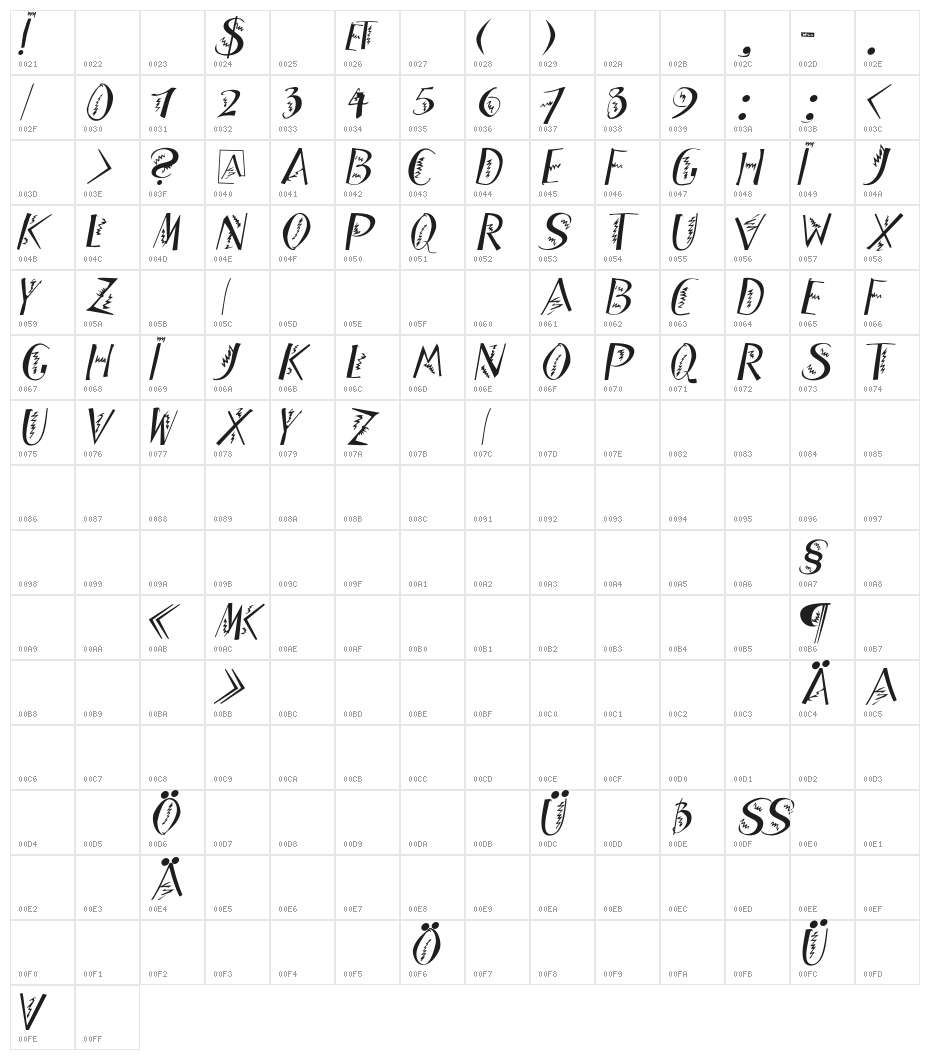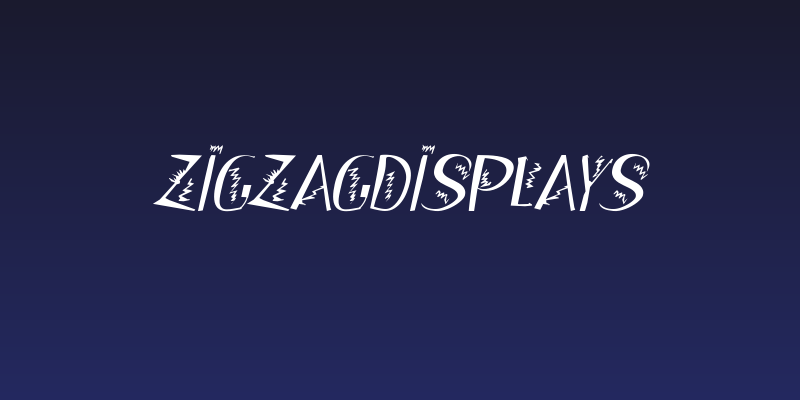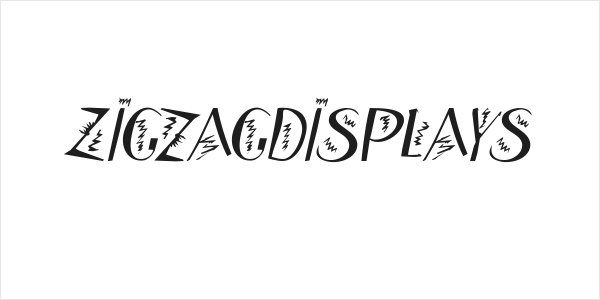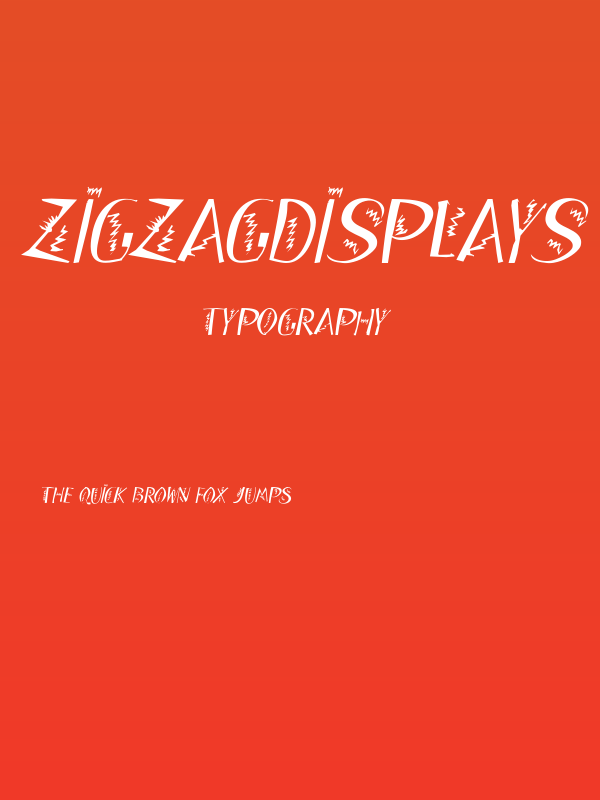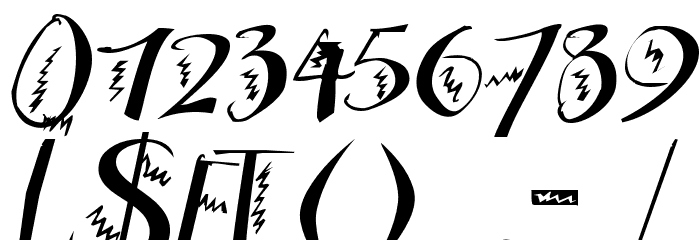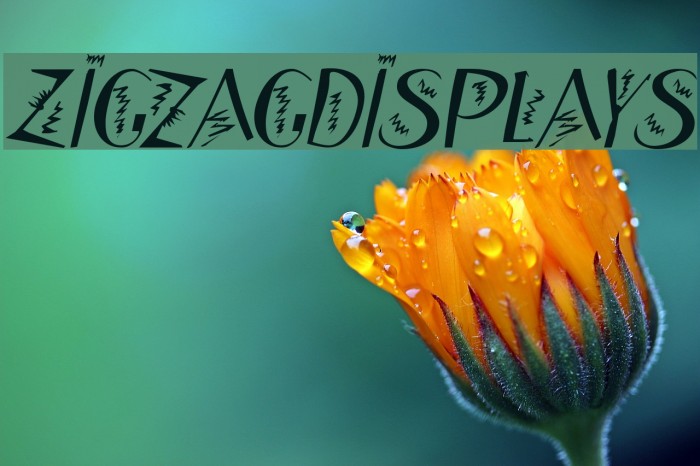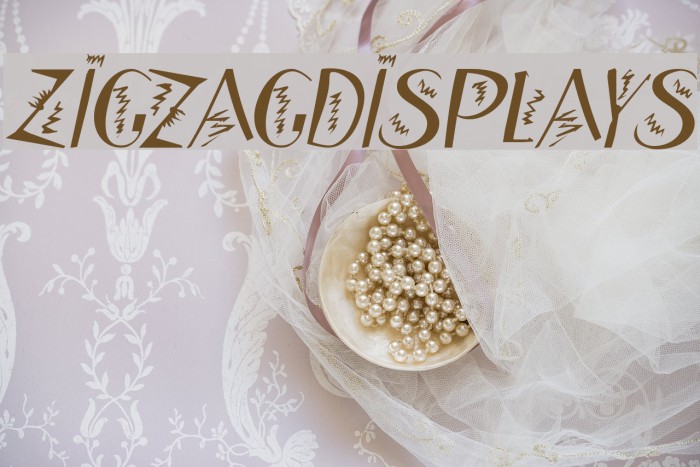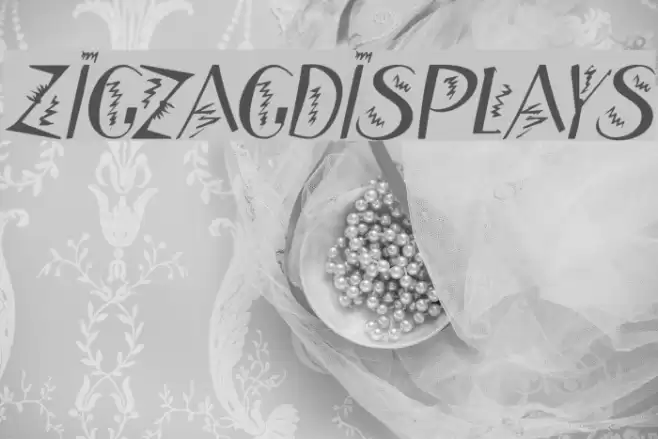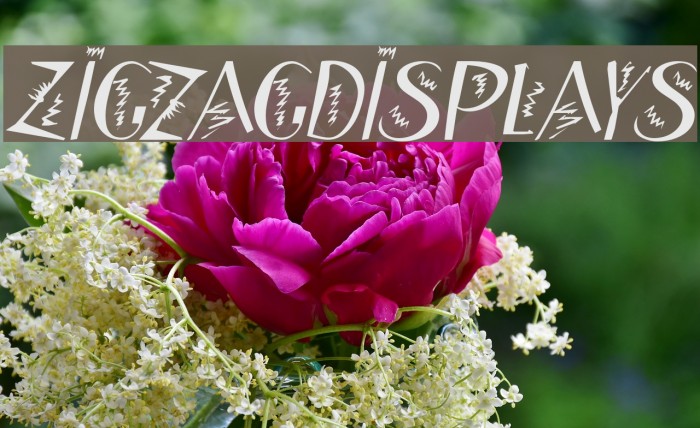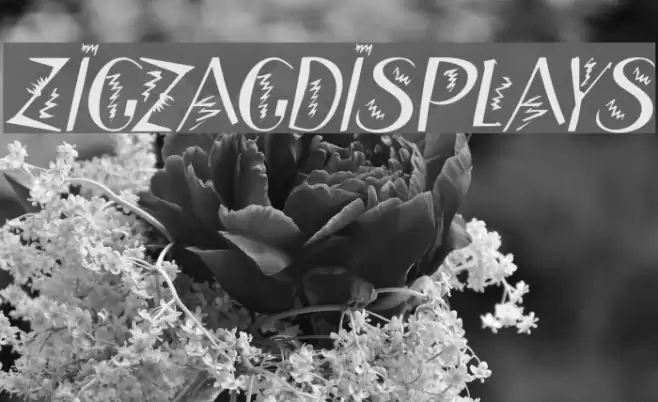
ZigzagDisplays Font
ZigzagDisplays Description
This font features a dynamic and energetic design, characterized by its zigzag patterns within each character. The letters have a playful and bold appearance, with sharp angles and a sense of movement that makes them stand out. The uppercase and lowercase letters maintain a consistent style, with the zigzag motif adding a unique texture. Numbers and special characters are equally expressive, making this font suitable for creative and eye-catching designs. The overall aesthetic is both modern and whimsical, perfect for projects that require a touch of flair and personality.
| Overall Style | Modern, Whimsical |
| Proposed Projects | Ideal for posters, event flyers, children's book covers, and any project needing a lively and distinctive typeface. |